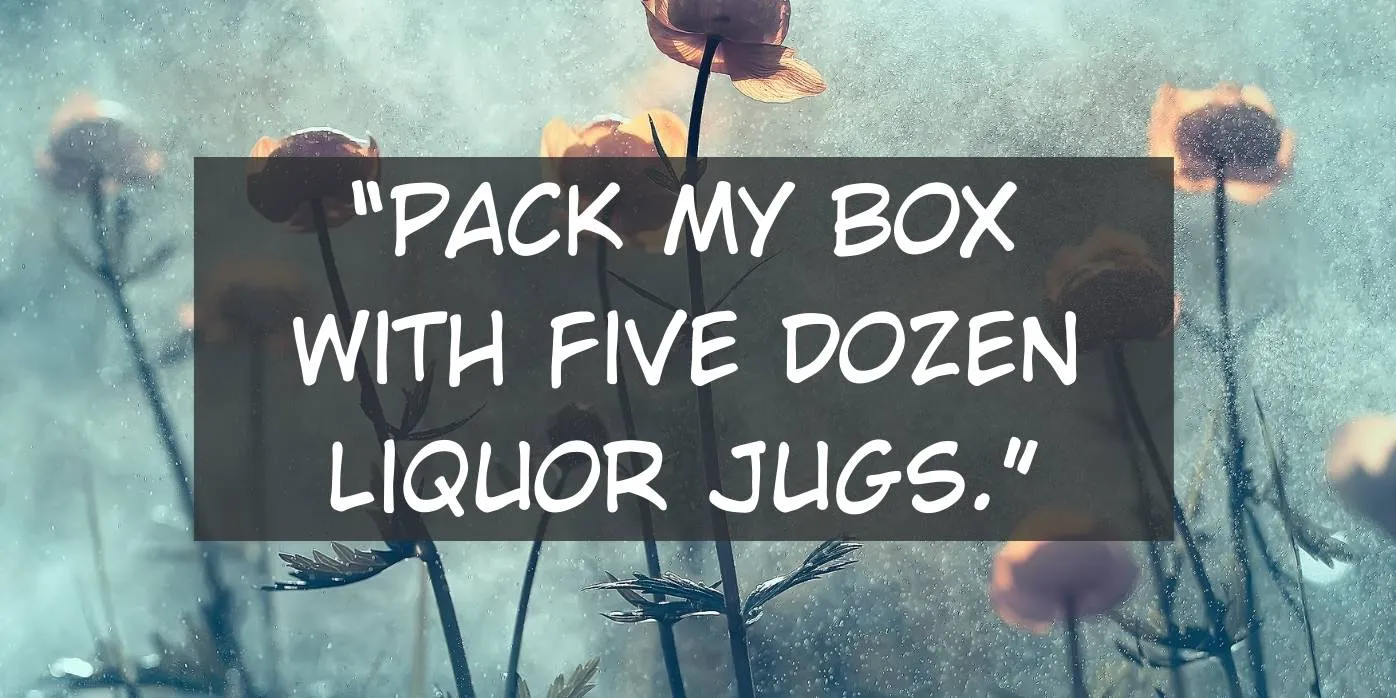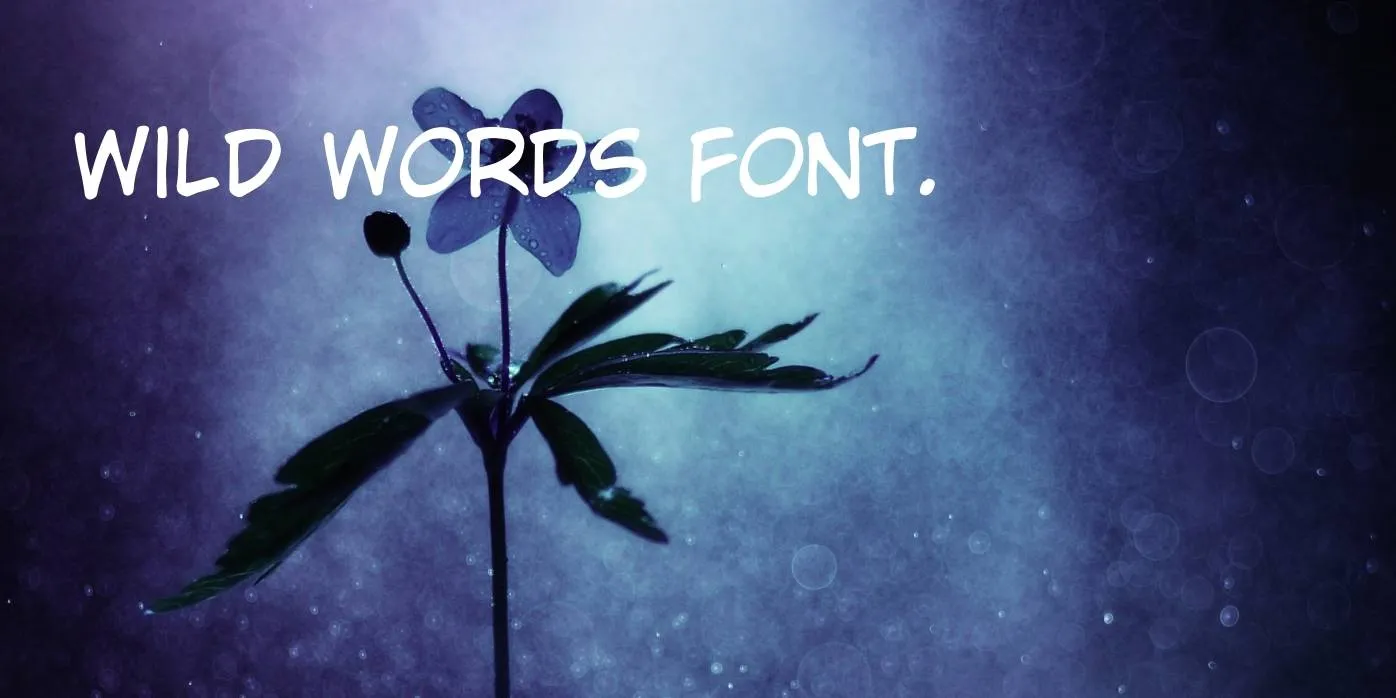
Wild Words Font
Here we are consulting about a marvelous and contemporary font family named Wild Words Font. It belongs to the Brush Font family. This classic typeface was designed by the hard work of a very famous and well-known designer Comicraft. Different styles of this cozy typeface are included in various comic books and fashion magazines.
These amazing styles are used in Famous toy stories and Sky-high movies. Because of its impressive look and good effects, this marvelous font is famous among different designers and brands. Its popularity is increasing day after day. This Font is available in three different styles.
The most common styles of these fonts are Roman and italic. This cozy typeface is available in 104 Glyphs. These Glyphs helps for making attractive designs. Rouged Brush Font is most similar to this typeface.
Due to its support to different international languages, it is used all over the world.